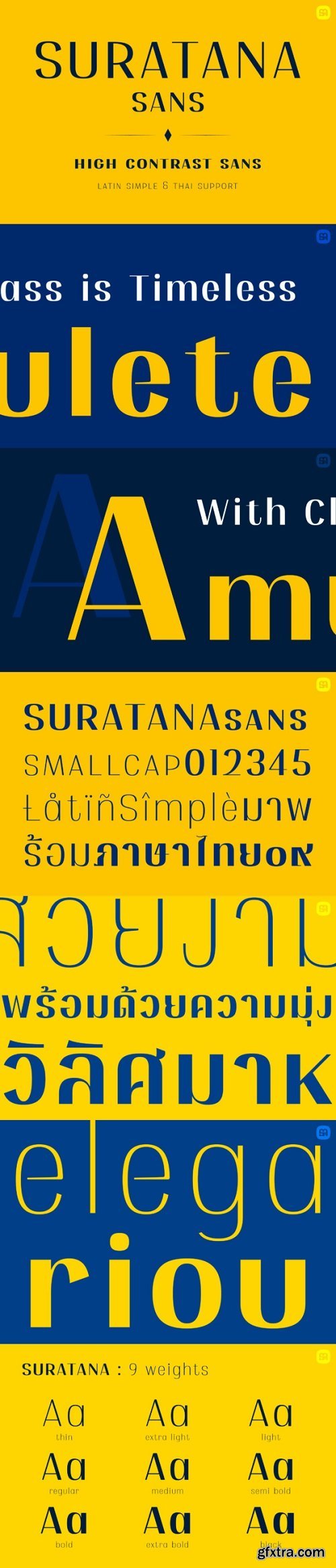
素莱那Sans字体家族
Suratana Sans Font Family
Suratana Sans is a cool and modern sans serif font. Whether you’re using it for crafts, digital design, presentations, or making greeting cards, this font has the potential to become your favorite go-to font, no matter the occasion!